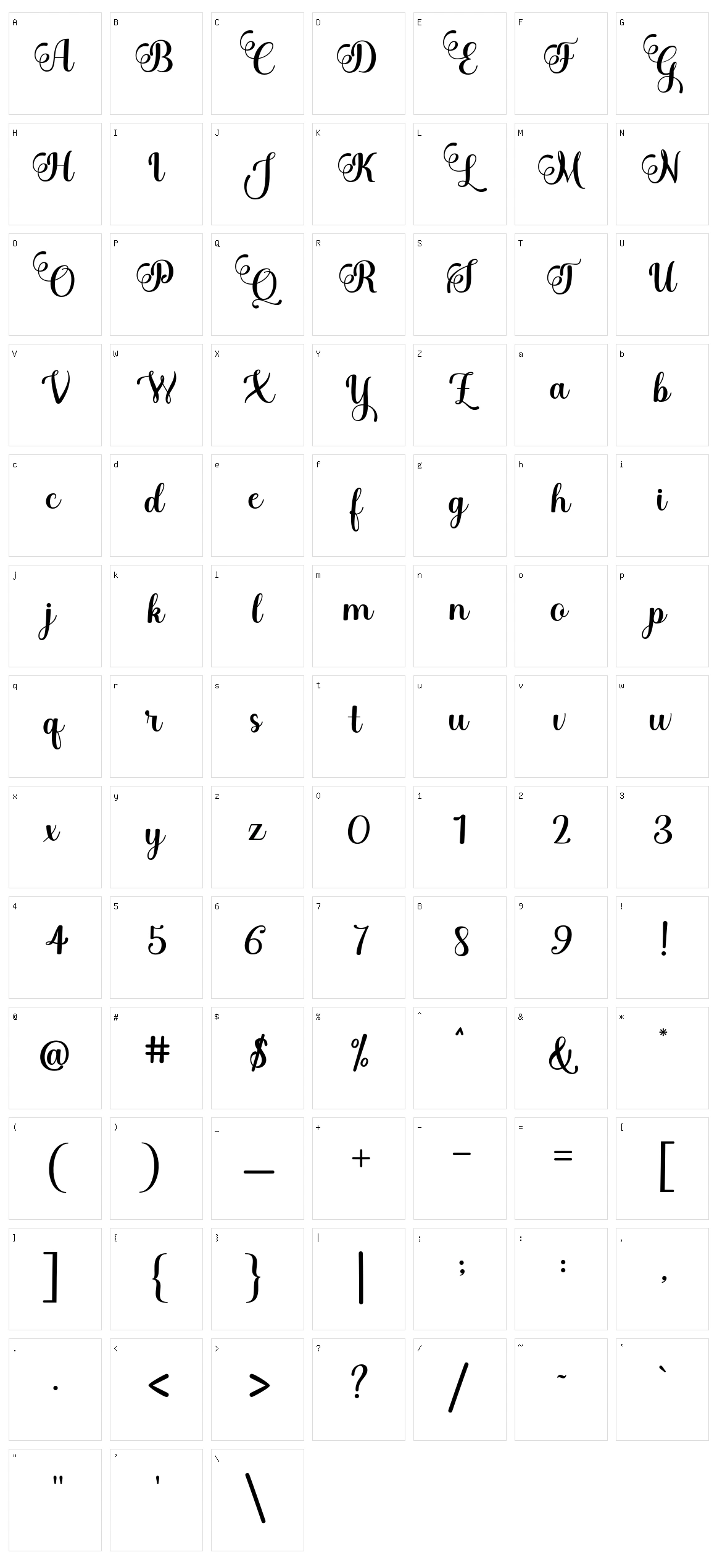
The free font Bleeding Heart is carefully designed by Romi Rahmadi, showcasing a thoughtful balance of creativity and usability and falls under the Script font style. When you download the ZIP file, it contains only 61.86 KB of font files, making it lightweight and quick to download. Please review the license details below to understand permitted usage and distribution rights. If license information is not available, we recommend using this font for personal projects only or contacting the author directly for commercial usage permissions.